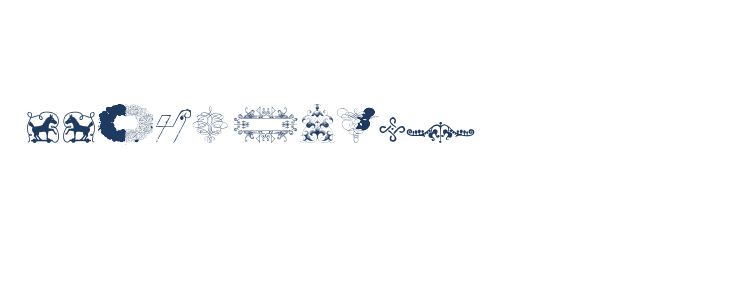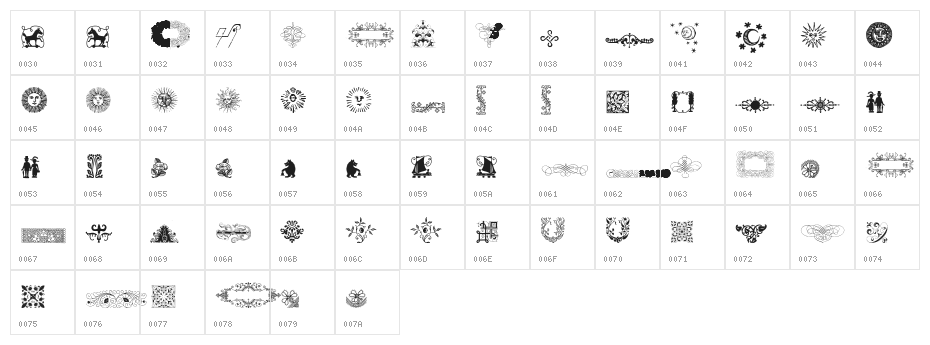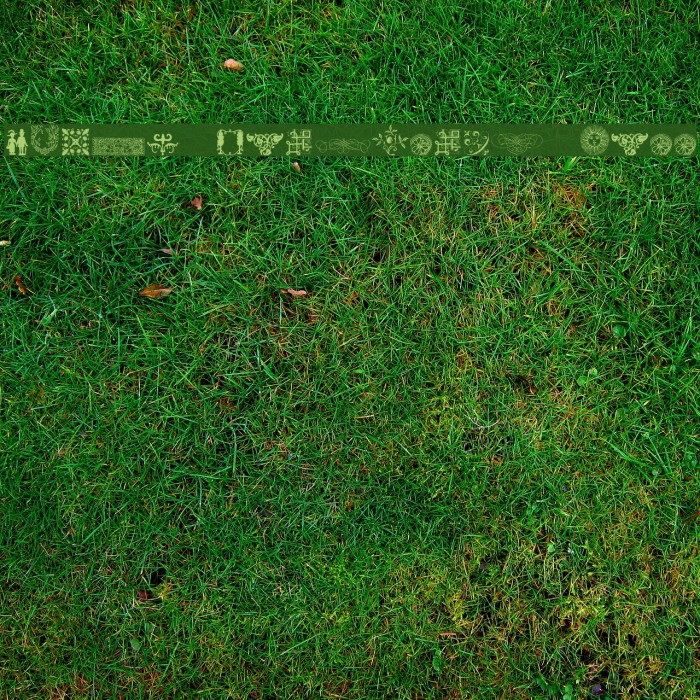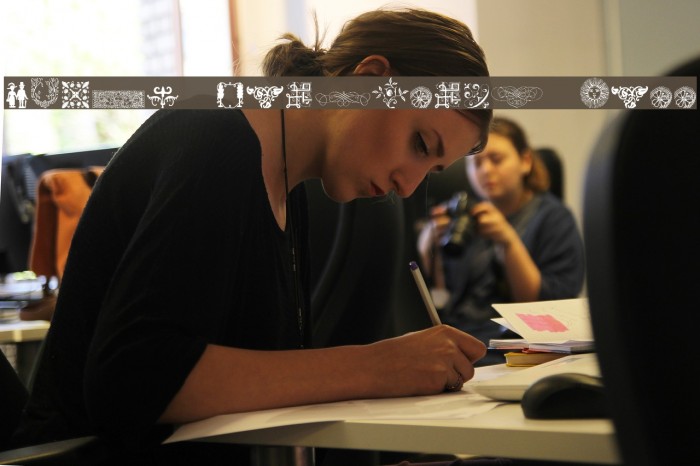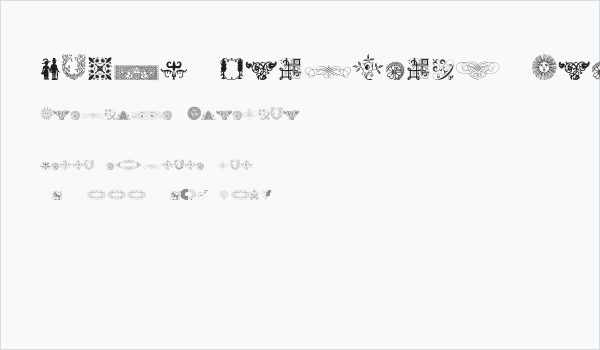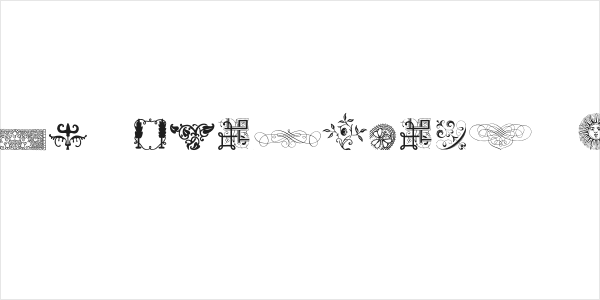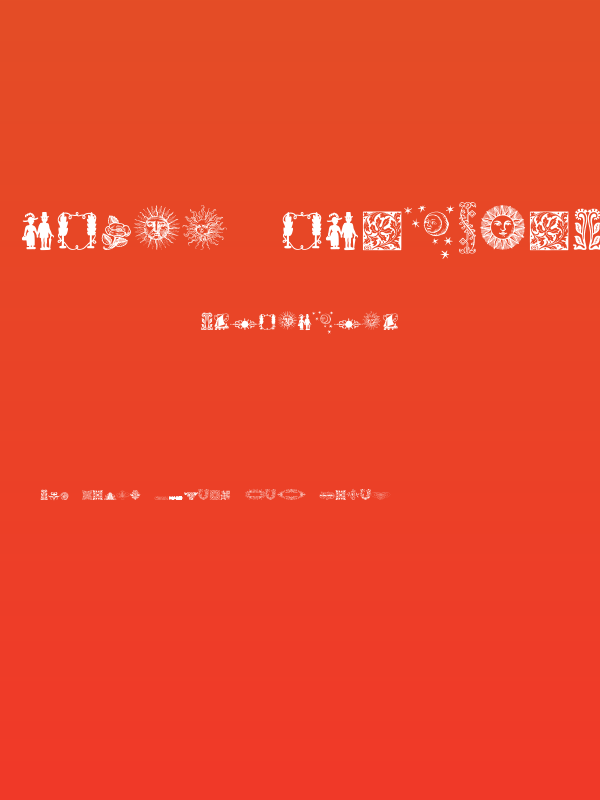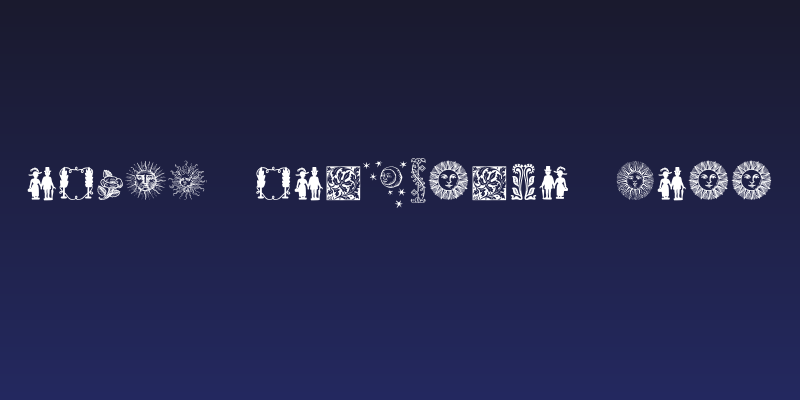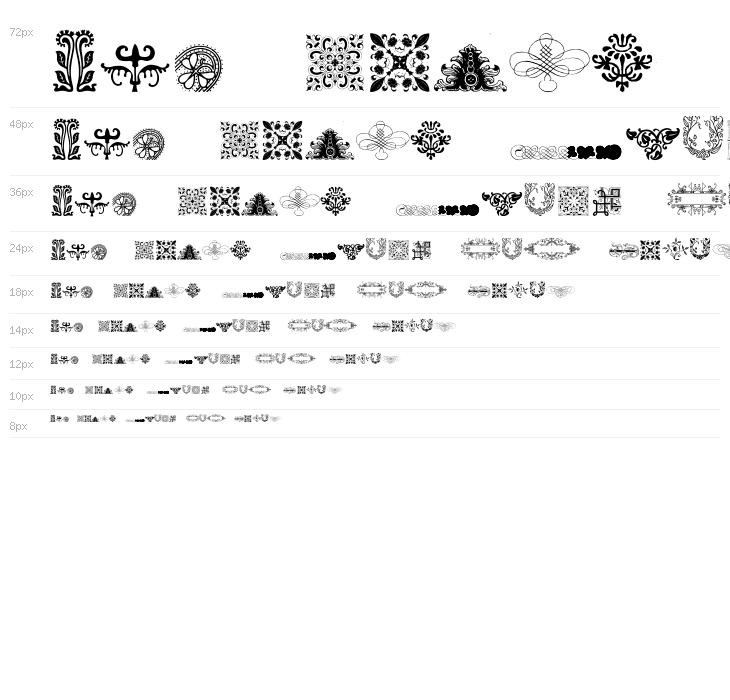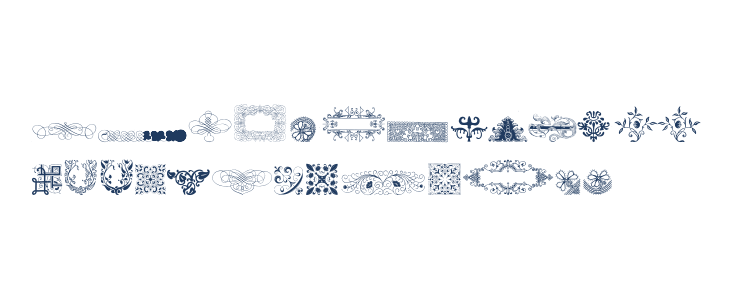
Rough Ornaments Free Font
A collection of highly decorative and intricate ornamental glyphs featuring motifs such as celestial bodies, floral elements, animals, human figures, and elaborate flourishes. The designs are detailed, with both solid and fine linework, evoking a vintage or antique aesthetic.
Overall StyleVintage, Decorative
Use CaseBorders, embellishments, dividers, and decorative accents.
Proposed ProjectsInvitations, certificates, book covers, decorative borders, vintage-themed designs, packaging, and branding.